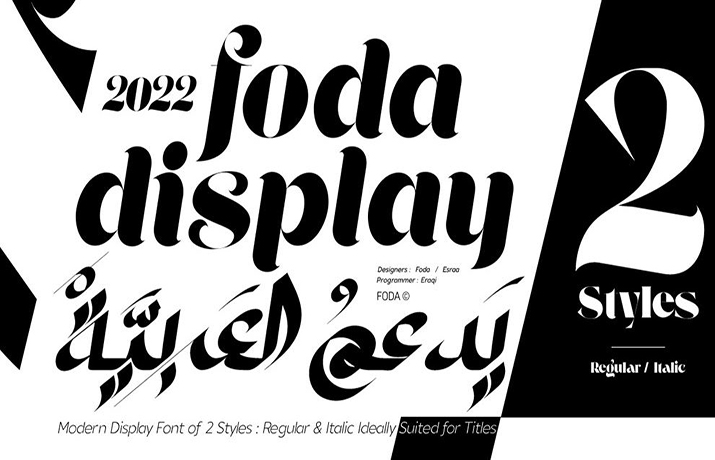
Foda Display is a stunning modern calligraphy font created by FoDa foundry. It is a perfect combination of Latin and Arabic scripts, making it a versatile choice for various design projects.
With its elegant and stylish design, Foda Display is ideal for branding, logos, packaging, advertising, social media designs, posters, wedding invitations, and more.
The font’s unique letterforms are carefully crafted with precision, resulting in a distinctive look that will surely capture any viewer’s attention.
The bold strokes, elegant curves, and subtle flourishes of Foda Display make it a perfect choice for adding a touch of sophistication and luxury to any design project.
The font’s versatility is further enhanced by its ability to be used in a variety of styles, from bold and expressive to delicate and refined. Whether you’re creating a powerful brand identity or a delicate wedding invitation, Foda Display is sure to impress.